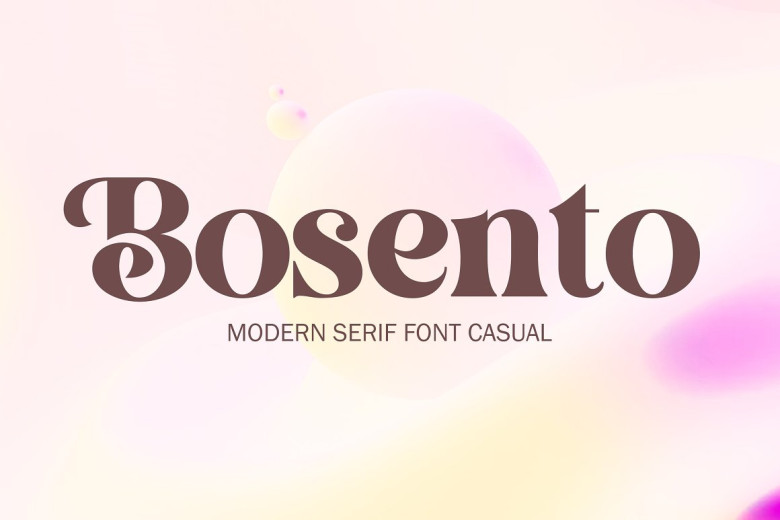
Bosento Font
Hi everyone! We are back with us today. The Bosento serif font is for projects: branding, poster designs, t-shirts, invitations, designs for kids, and editorial designs. This serif includes a lot of glyphs, you can access ligature for looking to make it elegant. OpenType features include: style sets, character variants, initial and endin g forms.. ForeignKey suitable multilingual support.
Bosento Serif Font